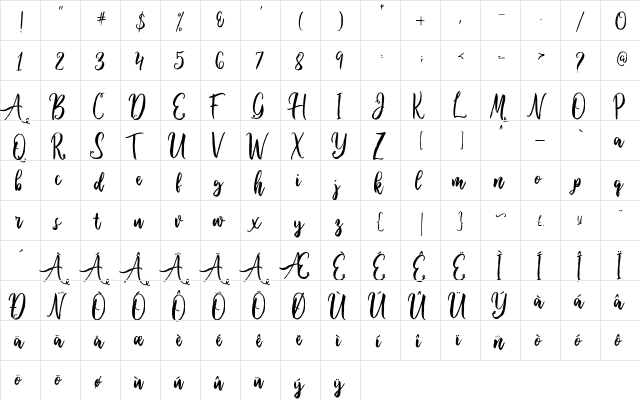
Ballada Regular
| Foundry | thirtypath |
| Designer | thirtypath |
Design Context for Ballada Typeface
Ballada is a composed and adaptable typeface that performs quietly and consistently across a wide range of design contexts.